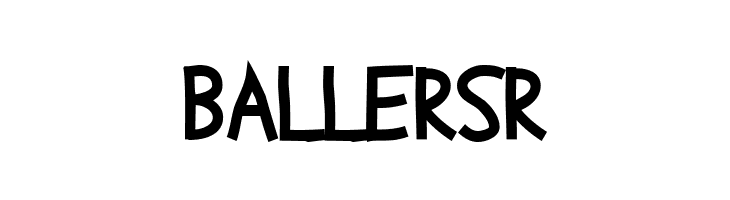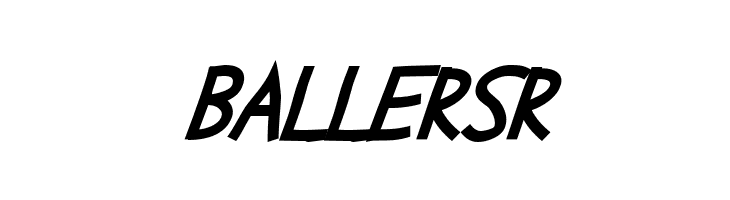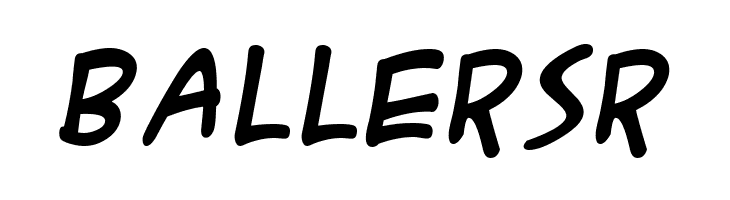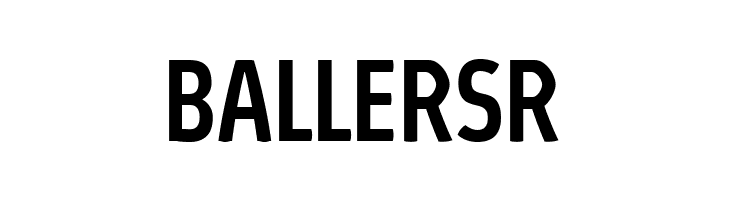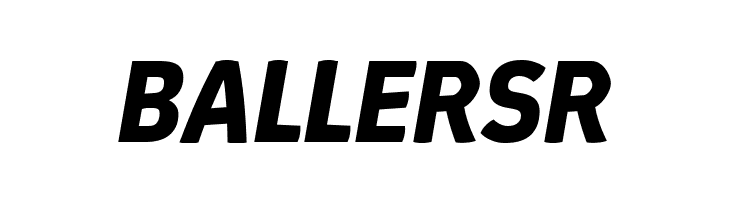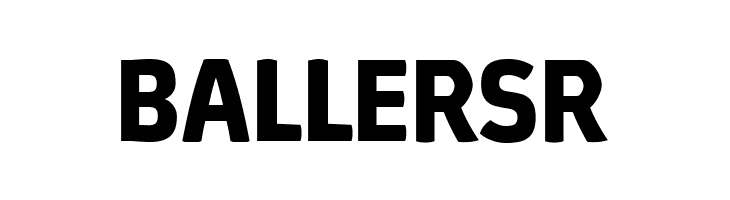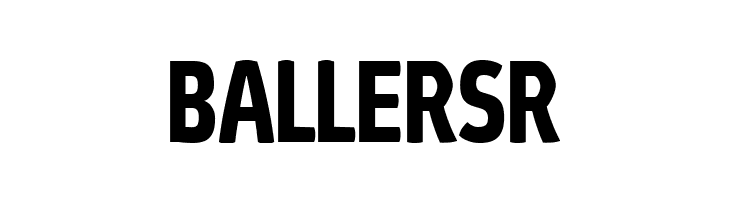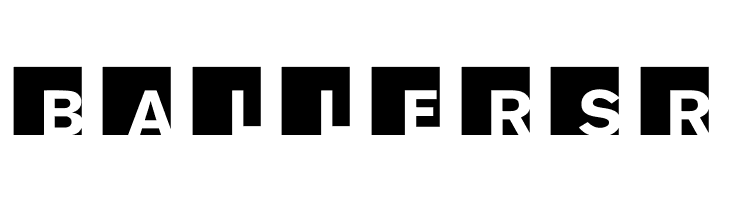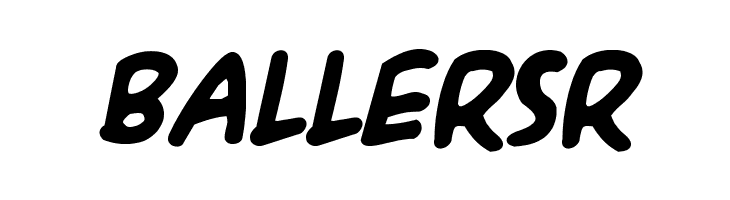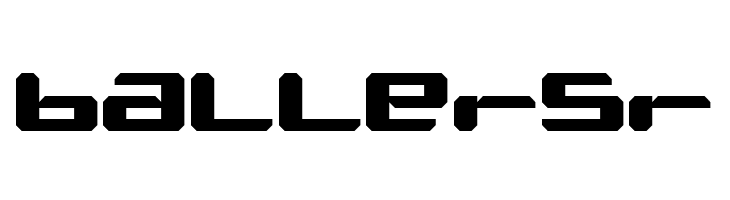
A bold, italic serif font with a classic yet modern appeal.
A bold, slightly distressed serif font with a hand-crafted feel.
A bold, futuristic font with geometric, rounded letterforms.
A modern, bold, and italic font with a sleek and dynamic design.
A bold, playful font with rounded, slanted letterforms and a handwritten feel.
A bold, italicized typeface with a modern, speedy aesthetic.
A bold, monospaced sans-serif font ideal for coding and headlines.
A modern, geometric font with clean lines and uniform stroke widths.
A sleek, modern italic font with consistent stroke width and rounded edges.
A bold, playful font with rounded, dynamic characters.
A bold, geometric font with characters in solid squares, offering a modern and structured appearance.
A bold, monospaced font with a modern and technical style.
A bold serif typeface with elegant, traditional characteristics and moderate contrast.
A bold, rounded sans-serif font with smooth curves and uniform strokes.
A bold, italicized font with rounded, smooth letterforms and a modern aesthetic.
A bold, playful font with thick, rounded strokes and a dynamic style.
A bold, italicized font with a playful, dynamic style and rounded characters.
A bold, playful font with a hand-drawn, informal style.
A bold and italicized font with dynamic, sharply angled characters.
A bold, condensed font with a modern and impactful style.
A modern, condensed sans-serif font with bold, uniform strokes and tight spacing.
A bold, modern font with clean lines and a slightly condensed form.
A bold, condensed font with a modern and impactful style.
A bold, rounded font with a modern and playful style.
A bold, italicized font with thick strokes and a dynamic style.
A bold, modern typeface with rounded characters and a clean aesthetic.